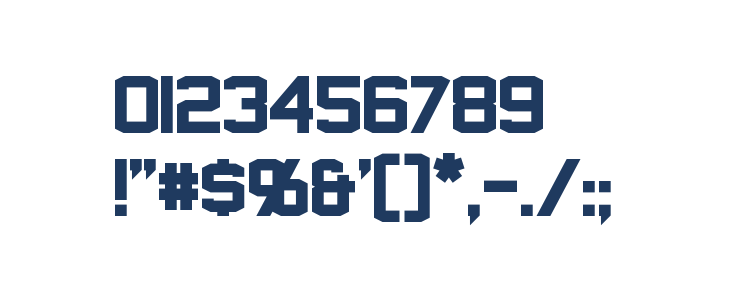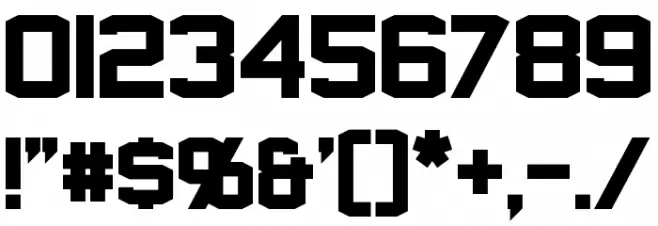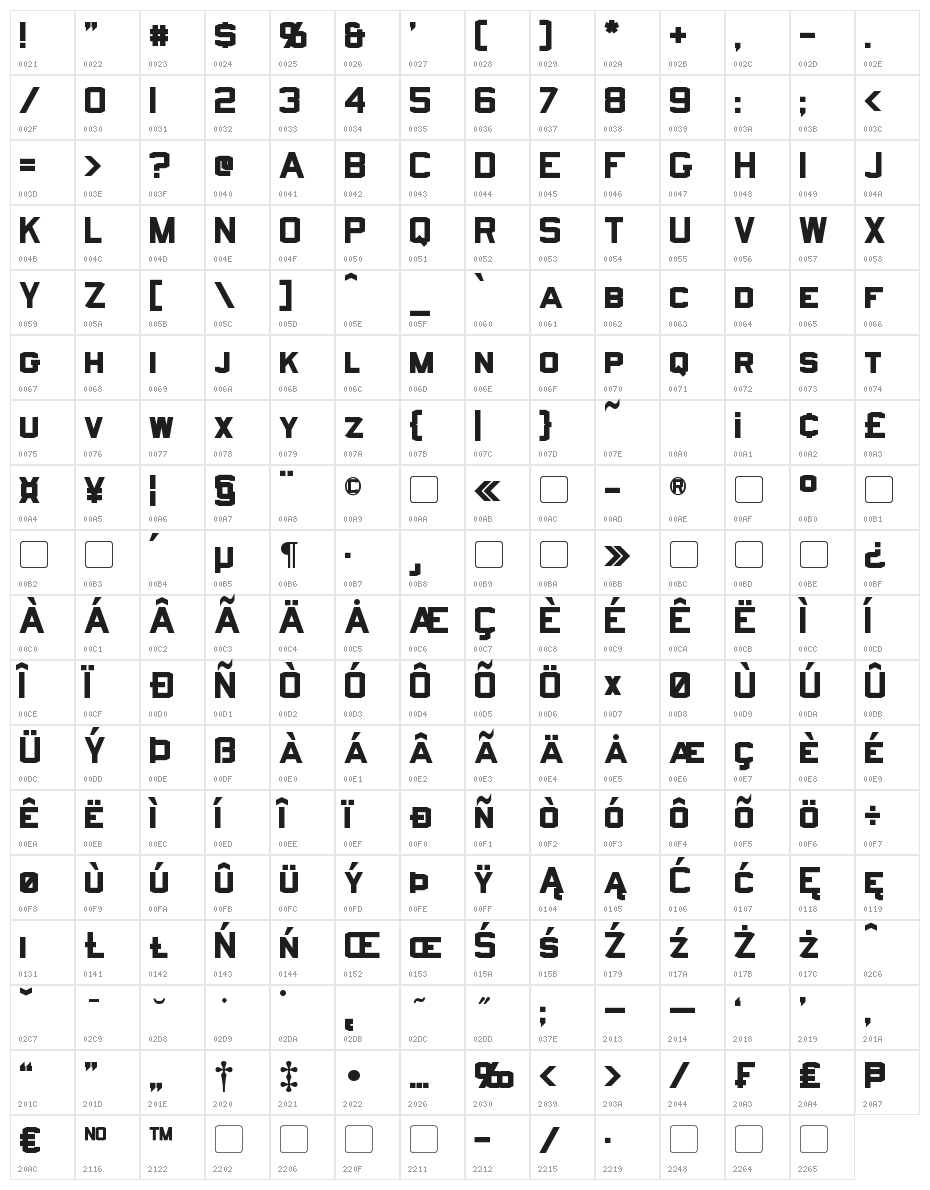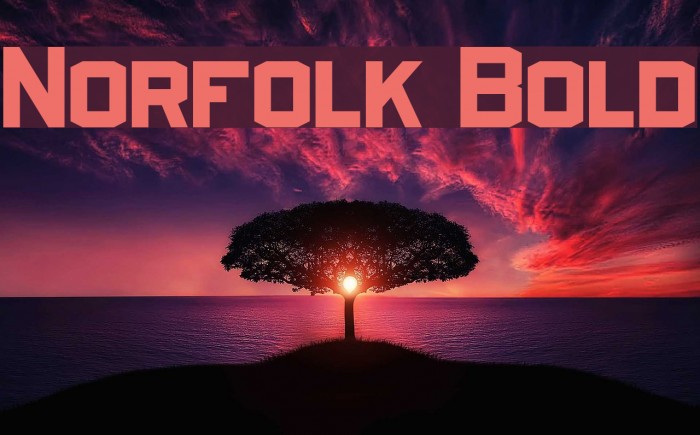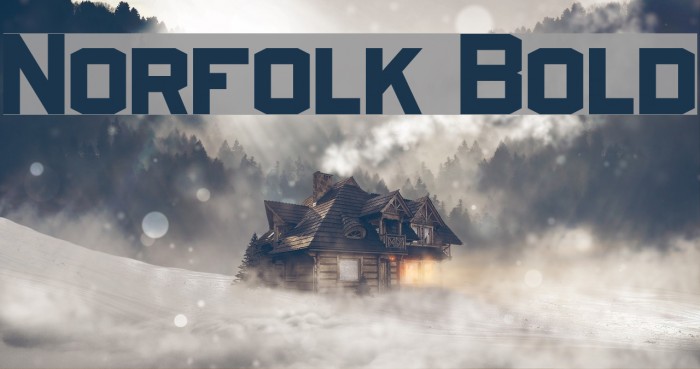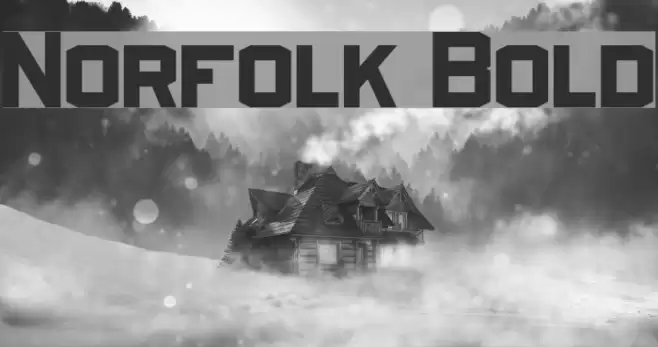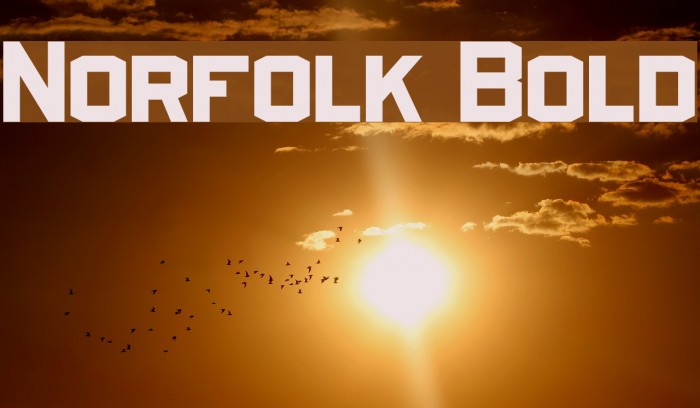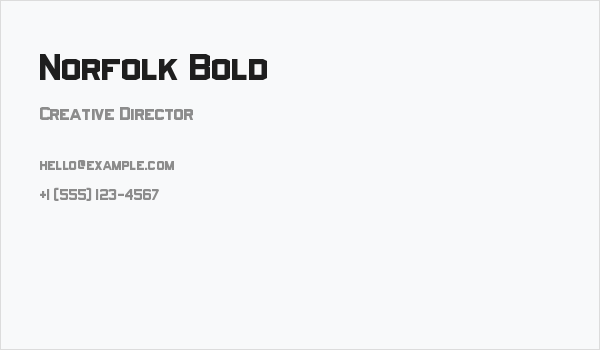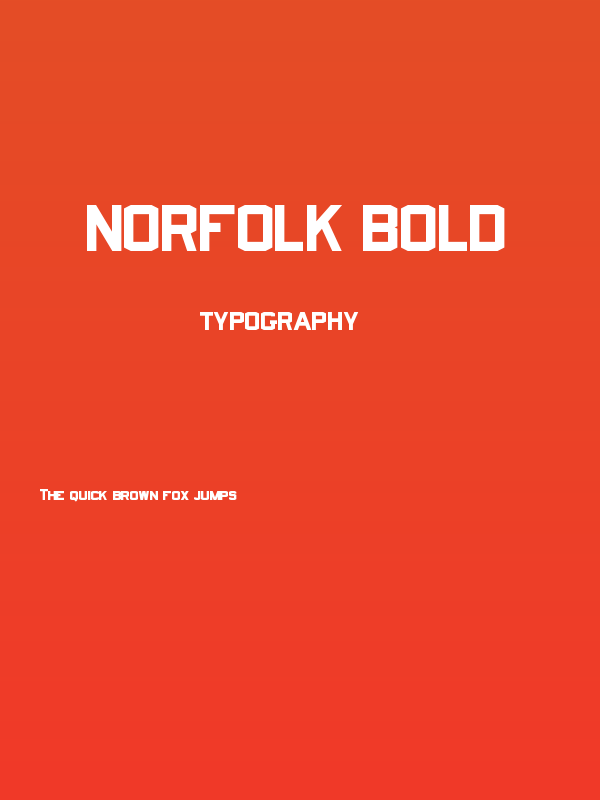
Norfolk Bold Font
Norfolk Bold Description
This font features a bold and geometric design with strong, angular lines and a robust presence. The characters are constructed with a block-like structure, giving them a modern and industrial feel. The uppercase letters are particularly striking, with consistent height and width, while the lowercase letters maintain the same boldness, ensuring readability and impact. The numerals are equally bold, matching the style of the letters. Special characters are designed with the same geometric precision, making them suitable for various applications. The overall style is assertive and confident, ideal for making a strong visual statement.
Proposed ProjectsIdeal for branding, posters, headlines, and any project requiring a strong visual impact.